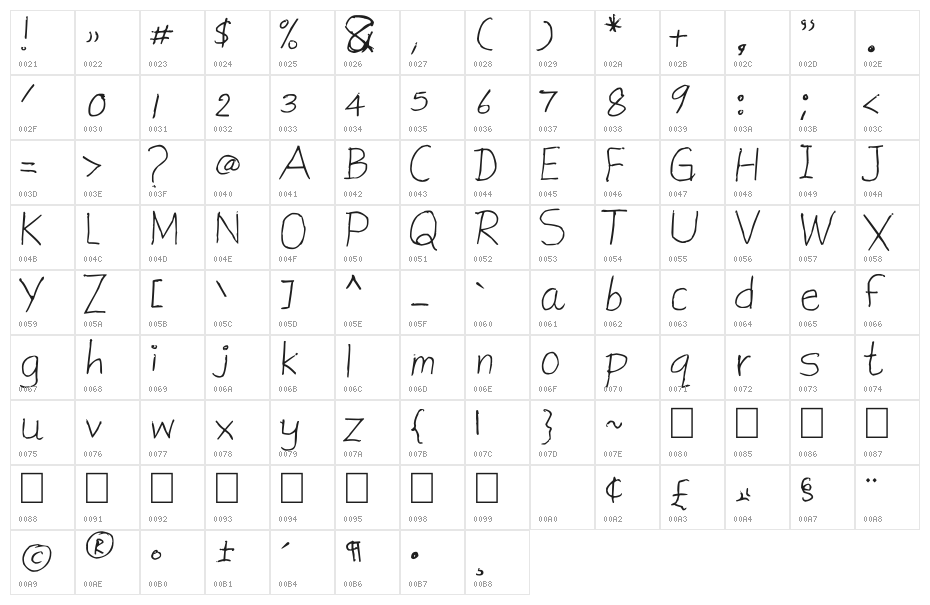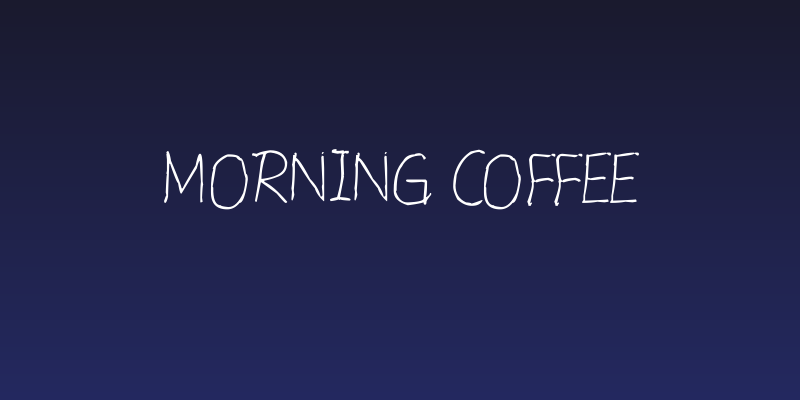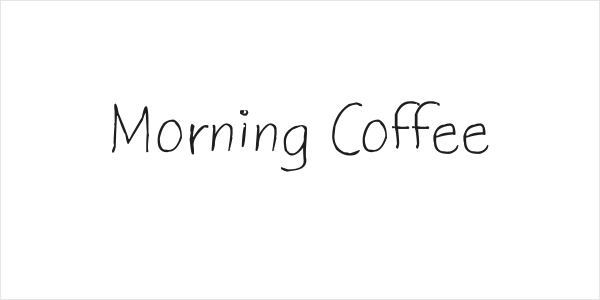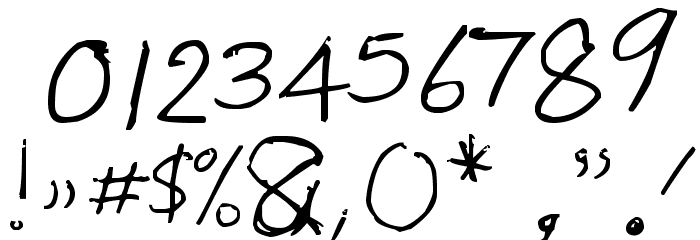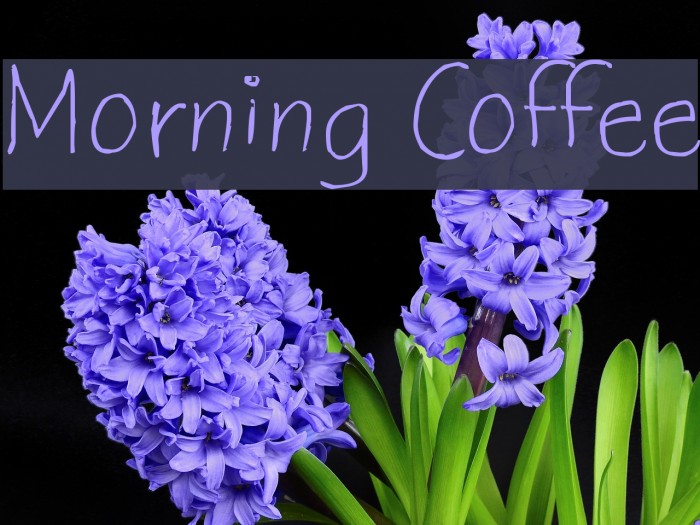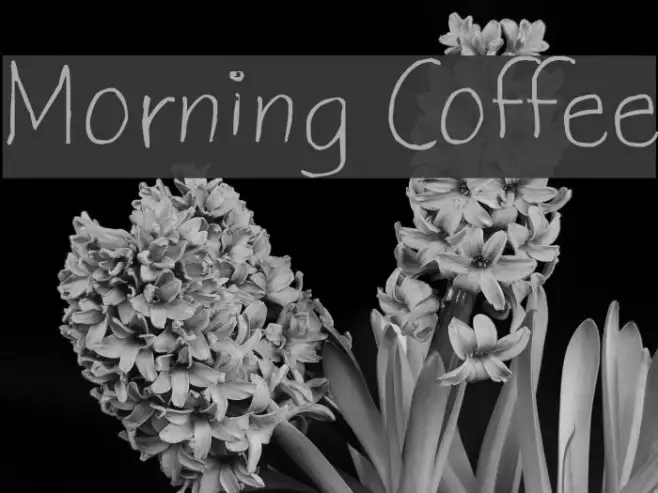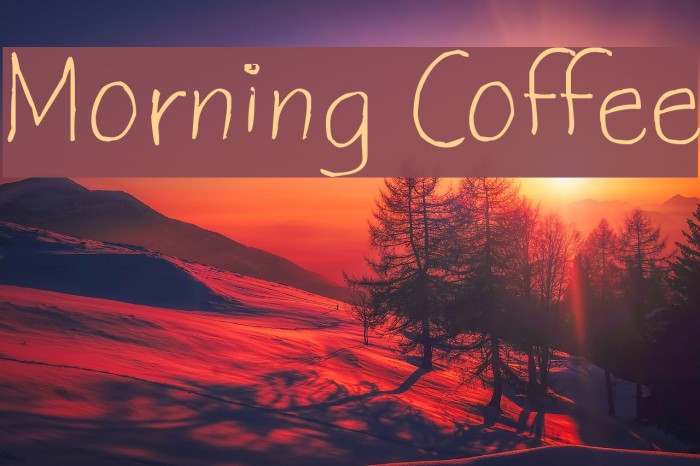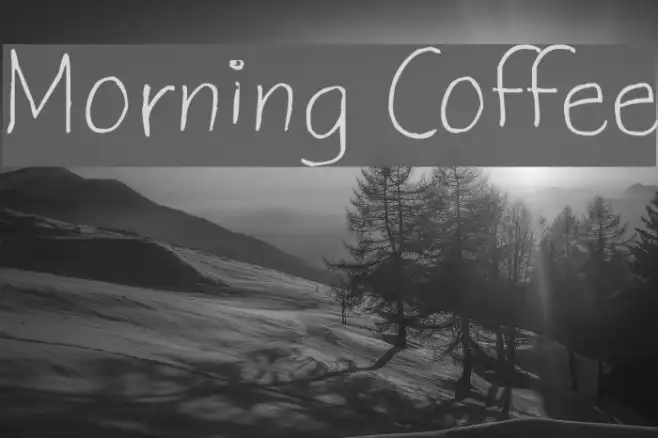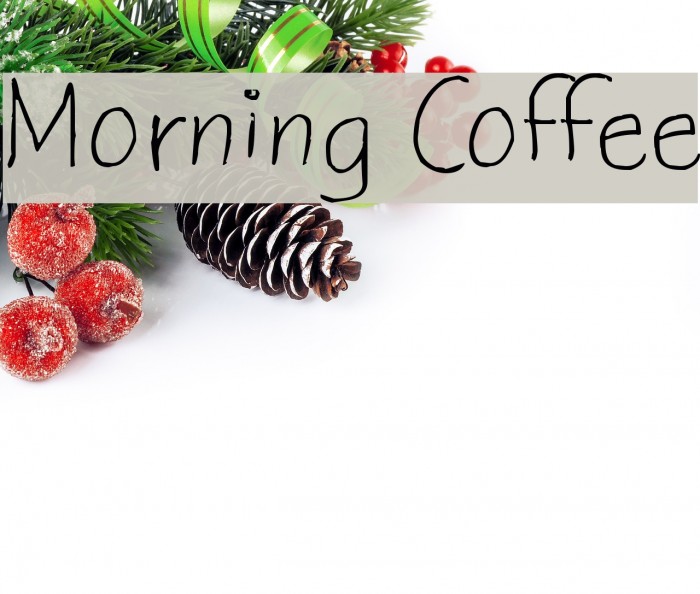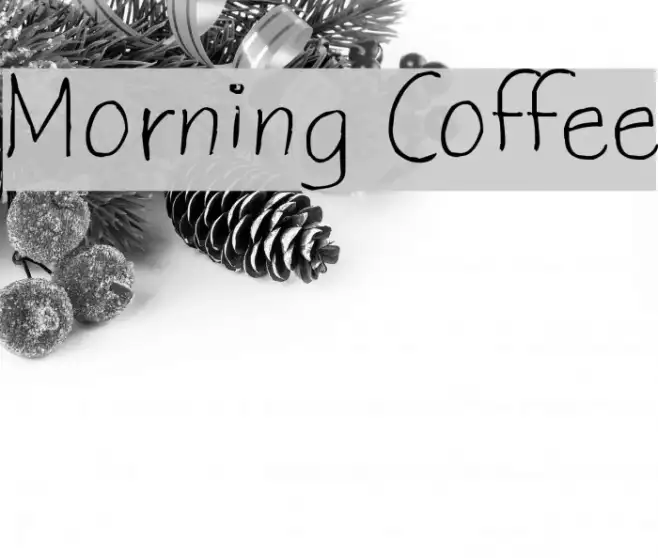
Morning Coffee Font
Morning Coffee Description
This font exudes a casual, handwritten style that mimics the natural flow of pen on paper. Each character is uniquely crafted with slight variations in stroke width, giving it an organic and personal touch. The uppercase letters stand tall with a slight slant, while the lowercase letters maintain a consistent baseline, adding to its approachable and friendly appearance. Numbers and special characters are equally expressive, maintaining the font's overall informal charm. The irregularities in line thickness and character shapes contribute to its authentic, hand-drawn feel, making it ideal for projects that require a personal or artistic touch.
| Overall Style | Casual, Artistic |
| Proposed Projects | Ideal for personal notes, creative projects, greeting cards, and informal branding. |